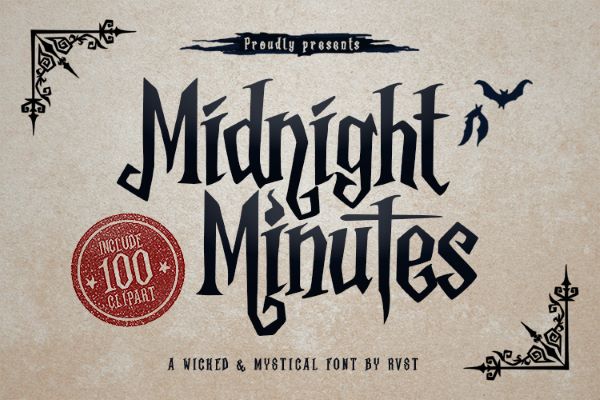
Midnight Minutes Font
Midnight Minutes font by RVST is a free Halloween serif display font with a sinister, high-drama presence — its sharp, elongated letterforms and dark atmospheric character making it a genuinely freaky font for horror-themed design work. Perfect for Halloween event posters, horror game titles, dark branding, and spooky editorial headlines, it delivers maximum menace with minimal effort. With over 355,000 downloads it has proven consistently popular. Available free for personal use; commercial licensing via Font Bundles.
Midnight Minutes is a darkly compelling addition to our free font collection, created by RVST — a type studio with a strong catalog of dark, themed display typefaces available via Font Bundles, delivering fonts with genuine visual authority for Halloween and horror contexts. Browse our full library of free fonts and discover more distinctive typefaces crafted by independent designers around the world.